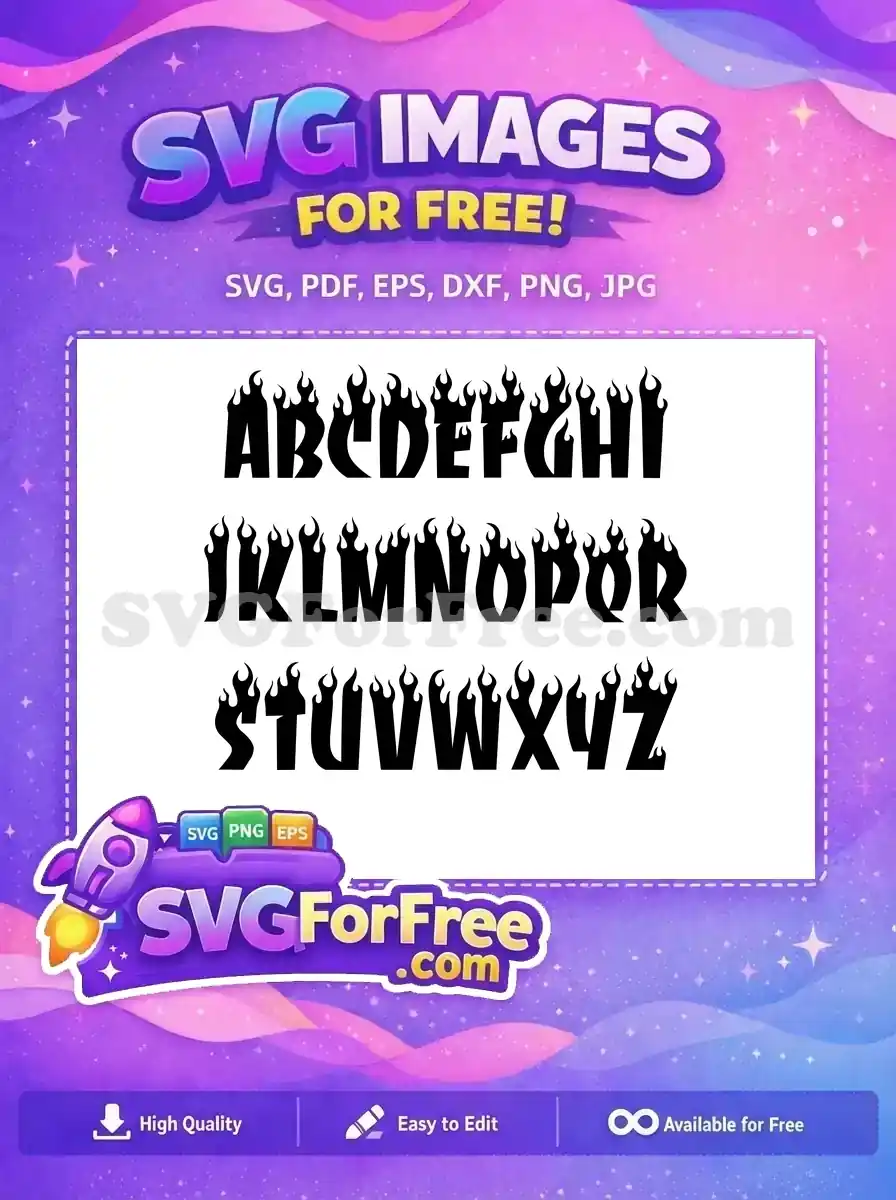
Free Black Flame Font Free Uppercase Alphabet Hot Burning Text Free SVG – Instant Download
Ignite your creative projects with this free fiery alphabet SVG design! Perfect for bold statements and custom crafts.
Free Black Flame Font Free Uppercase Alphabet Hot Burning Text Free SVG